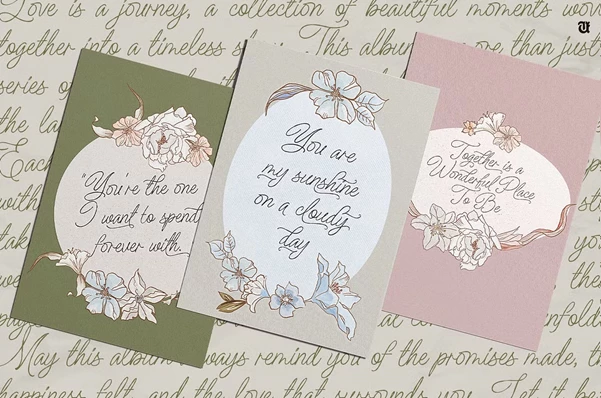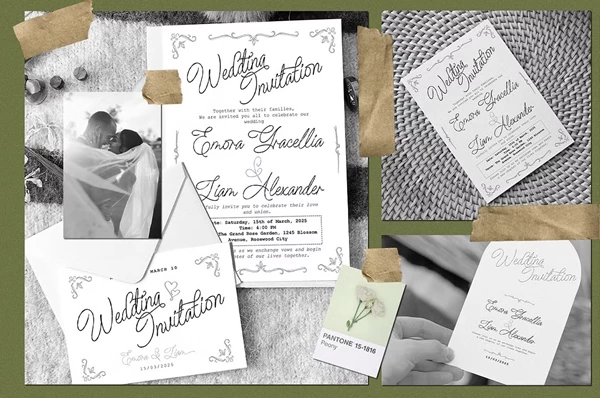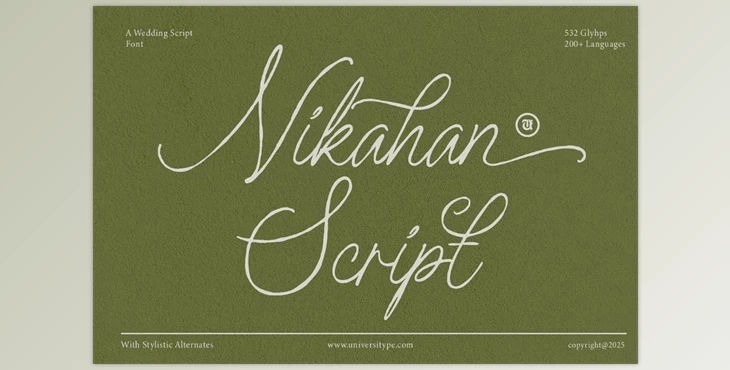
UT Nikahan Script - A Wedding Font:
UT Nikahan Script is a font that marries classic calligraphy and cursive writing style with modern design. Tailor-made for intricately crafted wedding materials, it adds personalization and elegance irrespective of invite, program, or stationery. With support for 200+ languages, it jovially caters to a global audience with its extensive character set, sophisticated curves, and seamless blend of vintage aesthetics and contemporary minimalism. UT Nikahan Script is tailored to designers, booth planners, and couples, delivering unmatched sophistication to every wc detail and communication at the wedding.
Some great features of UT Nikahan Script - A Wedding Font:
- Stylistic Alternates: A wide variety of style for each letter helps to customize and design the end result as desired.
- Multilingual Support: International weddings are made easier with 200+ languages supported.
- Extended Glyph Set: A completed design can be made as these 532 glyphs enable endless possibilities.
- Ligatures: Pairs of some select letters are joined automatically for text that flows.
- Design Versatility: For all styles of weddings as a combination of modern minimalism and traditional calligraphy.